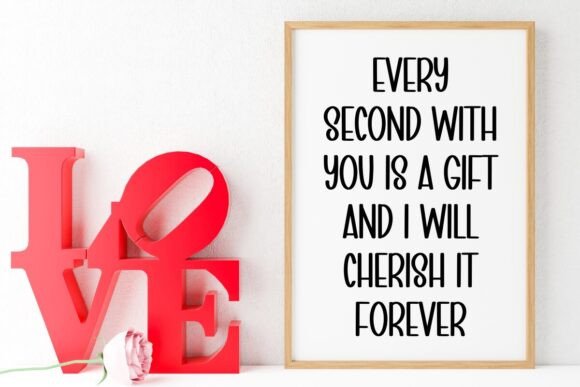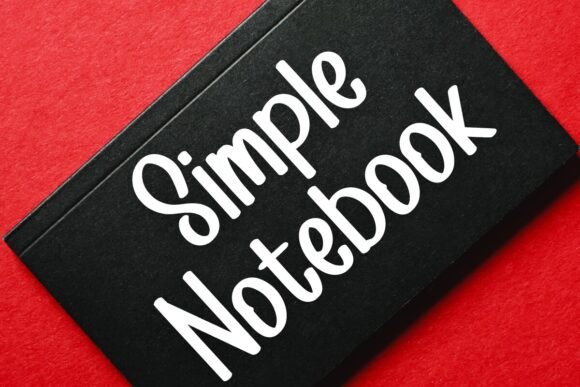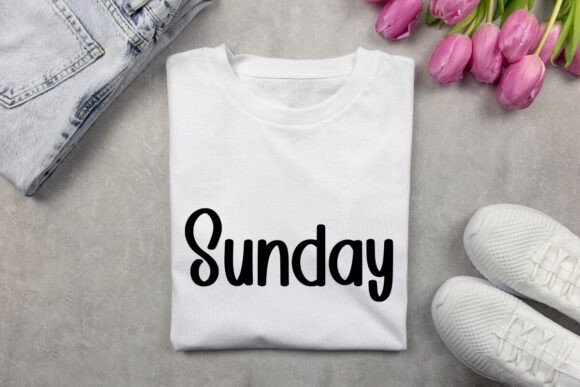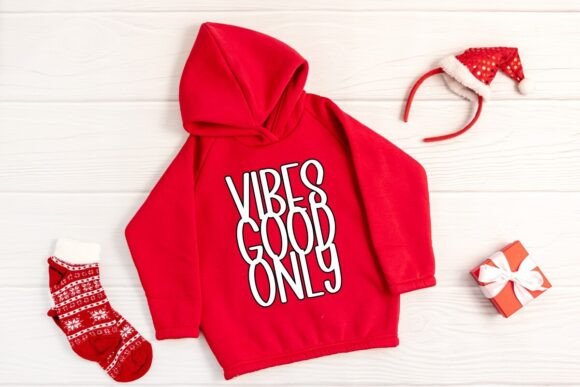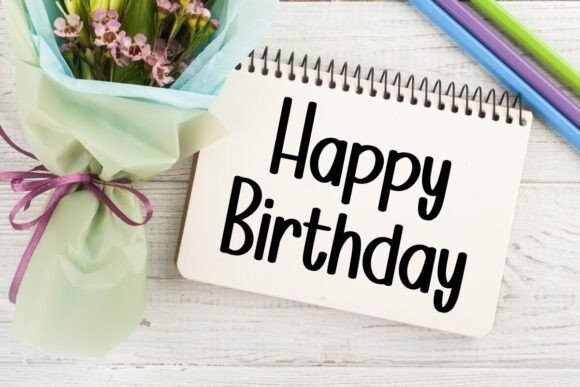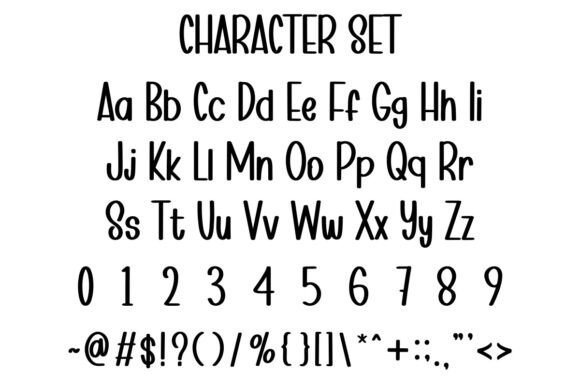
Fall in Love with the Perfect Font: A Cute and Friendly Handwritten Style
Are you tired of using the same old fonts for your projects? Do you want to add a touch of personality and whimsy to your designs? Look no further than the Fall in Love font! This adorable handwritten font is perfect for crafters, designers, and anyone looking to add a friendly touch to their work.
What is Fall in Love Font?
Fall in Love is a carefully crafted handwritten font, designed to bring a sense of cuteness and friendliness to your projects. Its unique and playful style makes it an ideal choice for a wide range of applications, from fun and creative projects to more traditional designs.
Perfect for Fun and Creative Projects
Whether you’re working on a diary planner, party decorations, or social media posts, Fall in Love font is the perfect choice. Its playful and whimsical style is sure to capture the attention of your audience and leave a lasting impression. Here are some ideas for fun projects that you can use Fall in Love font for:
- Easter and Christmas decorations
- Back to school and Halloween-themed designs
- Wedding invitations and party decorations
- Summer and Winter-themed posters and blogs
- Kids-related designs, such as children’s books and educational materials
- Greeting cards and social media posts
Why Choose Fall in Love Font?
There are many reasons why Fall in Love font stands out from the rest. Here are just a few:
- Cute and Friendly Style: Fall in Love font has a unique and playful style that’s sure to bring a smile to your audience’s faces.
- Versatile: This font can be used for a wide range of projects, from fun and creative designs to more traditional applications.
- Easy to Read: Despite its playful style, Fall in Love font is easy to read and understand, making it perfect for body text and headings.
- Perfect for Digital and Print Designs: Whether you’re working on digital designs or print materials, Fall in Love font is optimized for both.
- Use it for Headings and Titles: Fall in Love font is perfect for headings and titles. Use it to add a touch of personality and whimsy to your designs.
If you’re looking for a font that will add a touch of personality and whimsy to your designs, look no further than Fall in Love font. This cute and friendly handwritten font is perfect for crafters, designers, and anyone looking to add a friendly touch to their work. With its versatile style and easy-to-read design, Fall in Love font is sure to become a favorite in your font library.